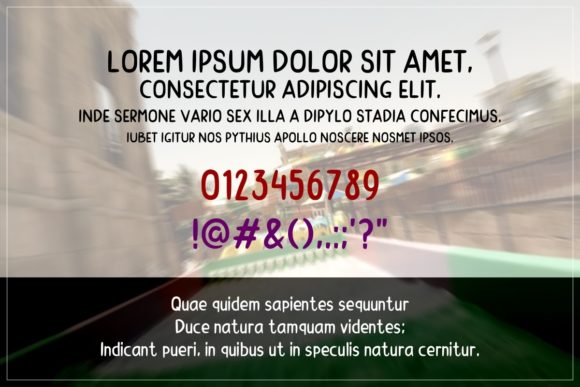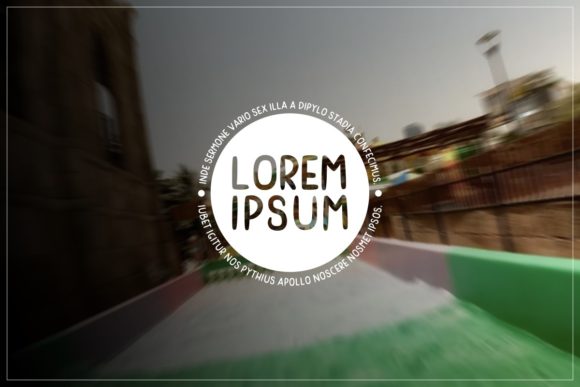
Funmoon is a versatile and delightful handwritten font that embodies a sense of cleanliness and casual elegance. With its clean and crisp lines, this font is an excellent choice for a wide range of creative endeavors, making it a reliable go-to font for various occasions.
The simplicity of Funmoon’s design allows it to seamlessly adapt to different projects and purposes. Whether you’re crafting intricate greeting cards, designing engaging digital content, creating eye-catching presentations, or embarking on any other creative venture, Funmoon rises to the occasion with its versatile charm.
The font’s casual demeanor exudes a friendly and approachable vibe, making it easy to connect with audiences of all kinds. Its unpretentious style lends a down-to-earth quality to your designs, helping you establish a genuine and relatable connection with your viewers.
Funmoon’s versatility doesn’t compromise its aesthetic appeal. Its understated elegance adds a touch of sophistication, allowing your projects to maintain a polished and refined look while retaining a sense of approachability.
Crafted with attention to detail, Funmoon’s characters come together seamlessly, ensuring a harmonious and visually pleasing result. This cohesiveness lends a professional touch to your designs, conveying a sense of care and thoughtfulness.
Whether you’re designing for a personal project or a professional endeavor, Funmoon has the ability to elevate your work and make it stand out. Its adaptability and clean, casual charm make it a font that can easily become a favorite choice, offering endless possibilities for creative expression.
Incorporating Funmoon into your design toolkit empowers you to effortlessly infuse a sense of freshness and authenticity into your work. It’s a font that encourages creativity, enabling you to explore a wide range of design directions and experiment with different styles.
With Funmoon by your side, you have a dependable and versatile font that can elevate your projects to new heights. Its clean and casual handwritten aesthetic makes it a valuable asset for a variety of occasions, ensuring that your designs remain engaging, stylish, and memorable.